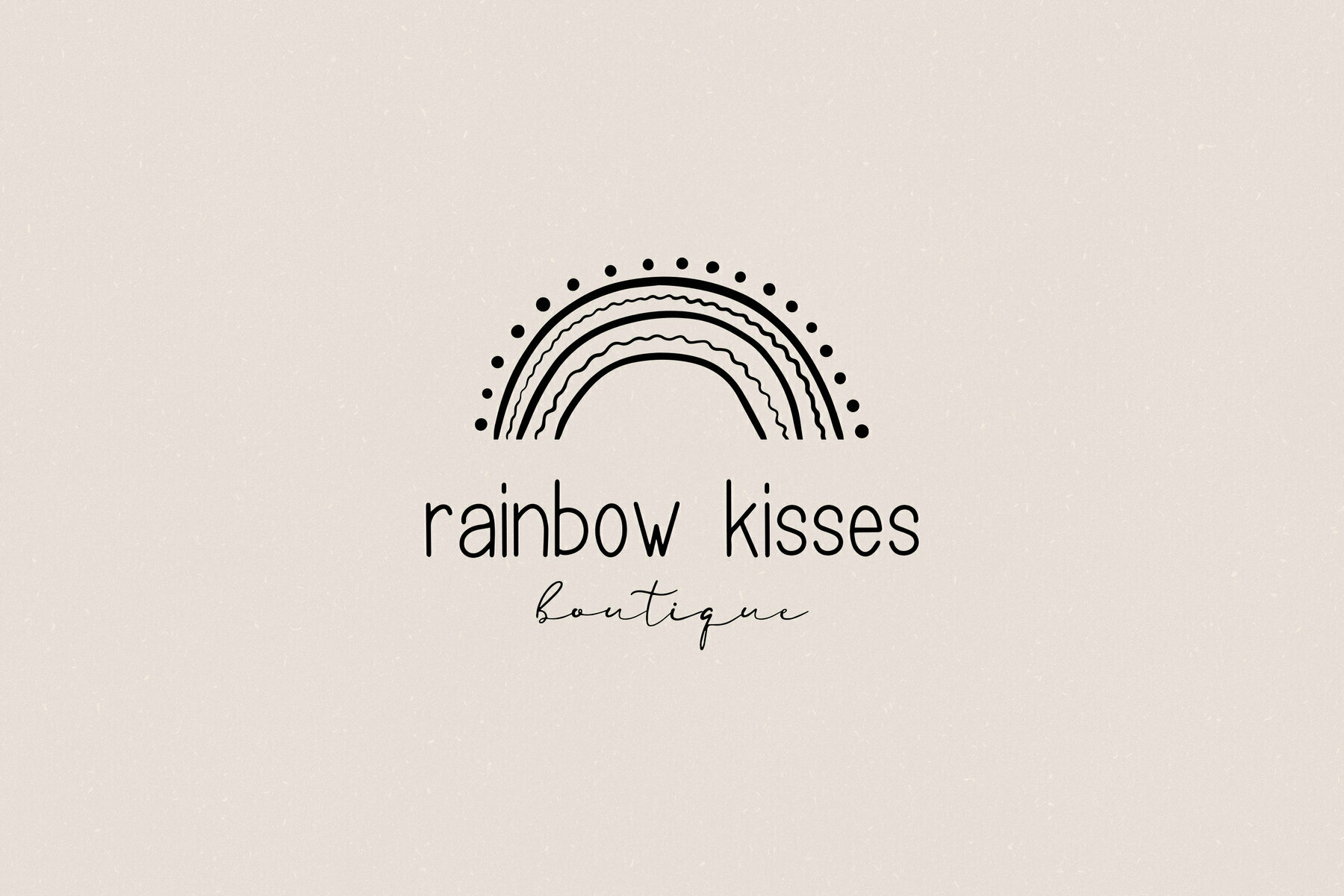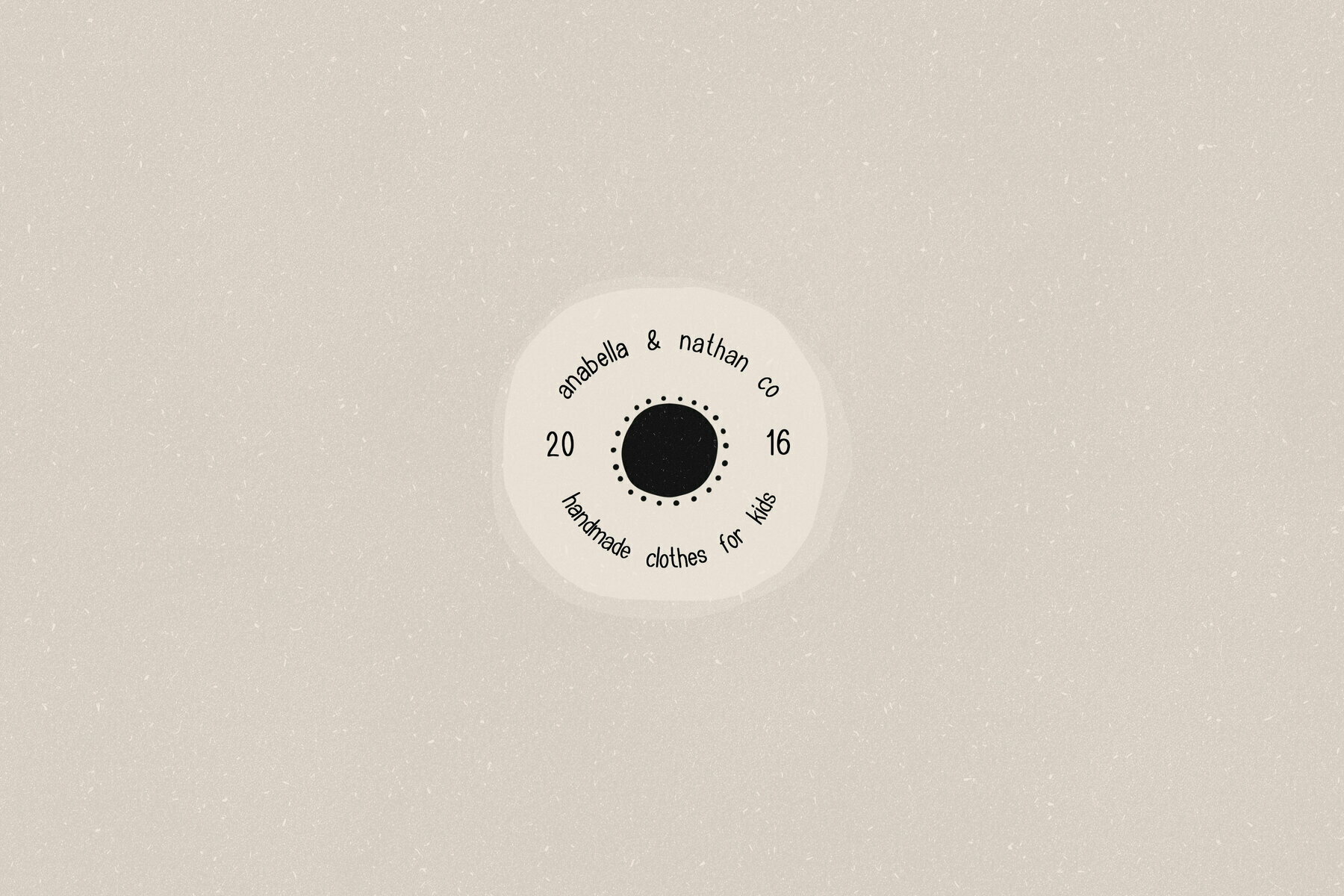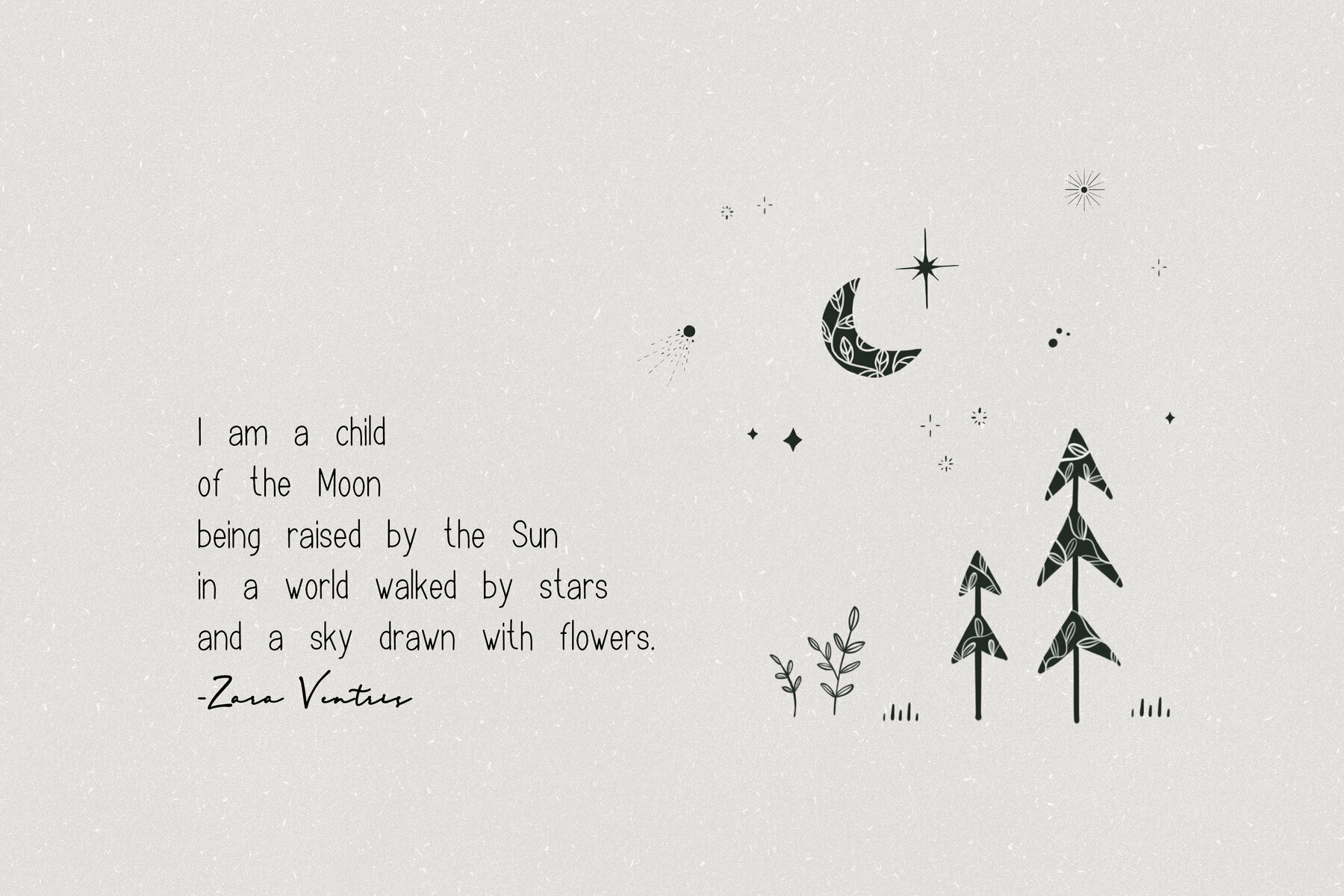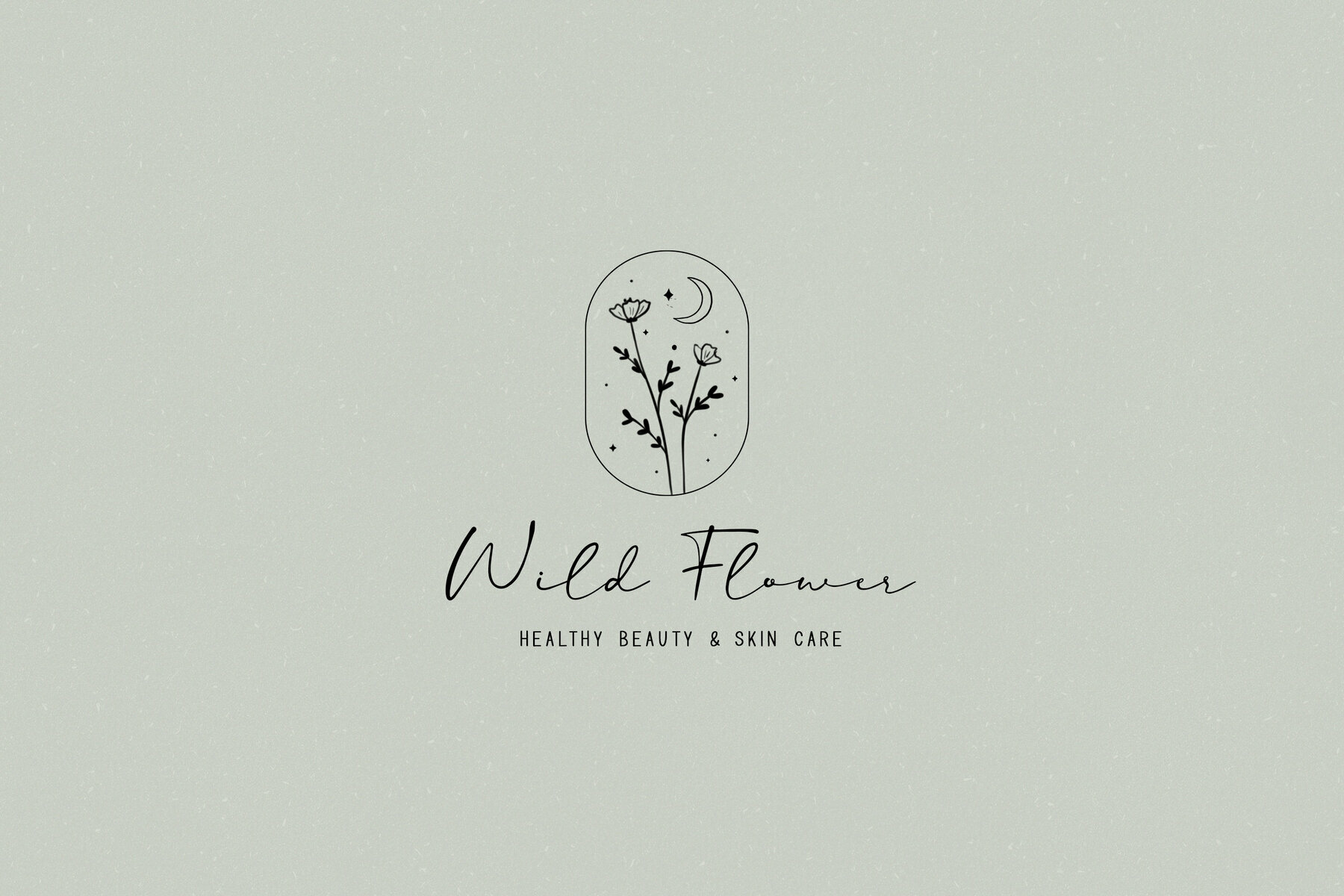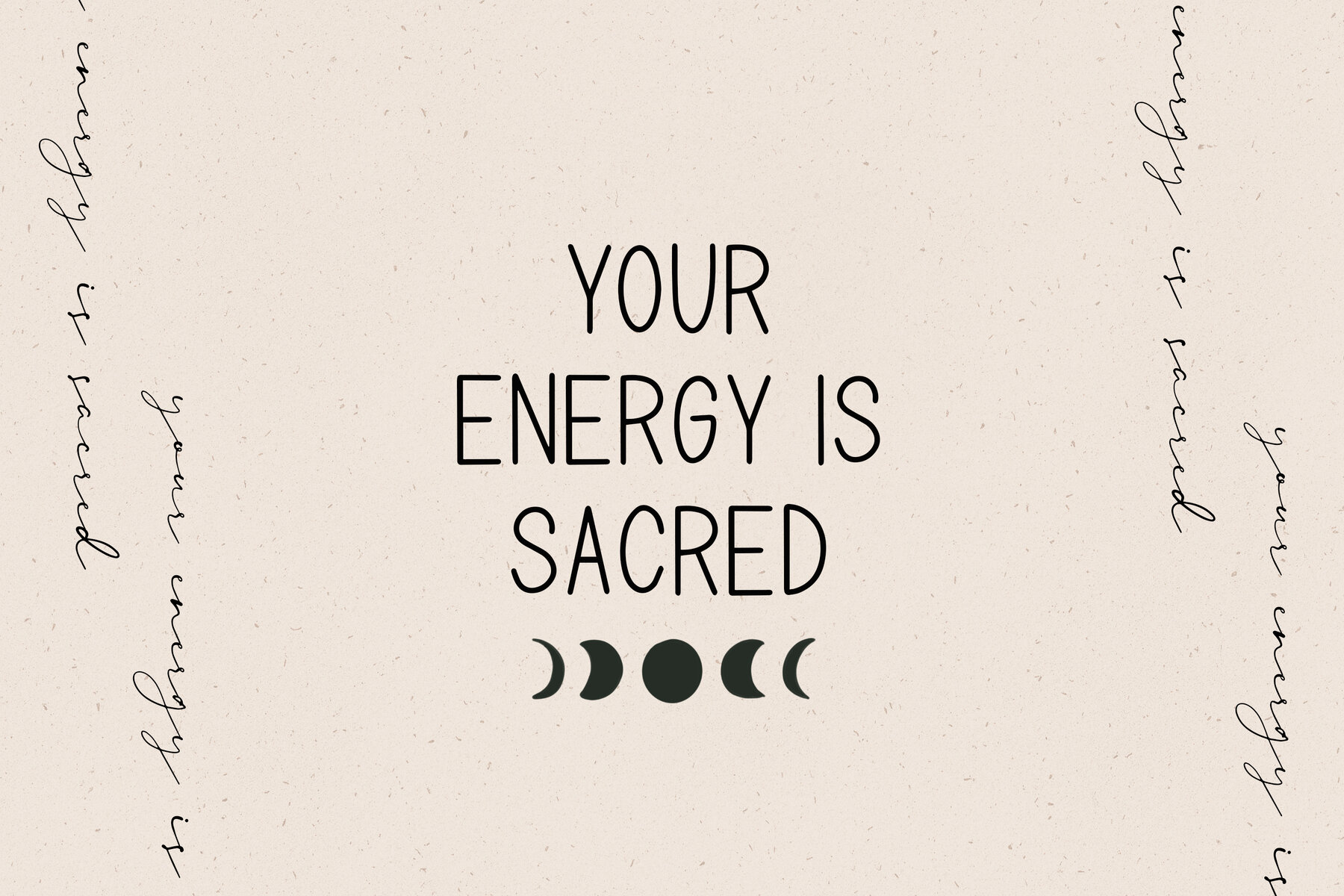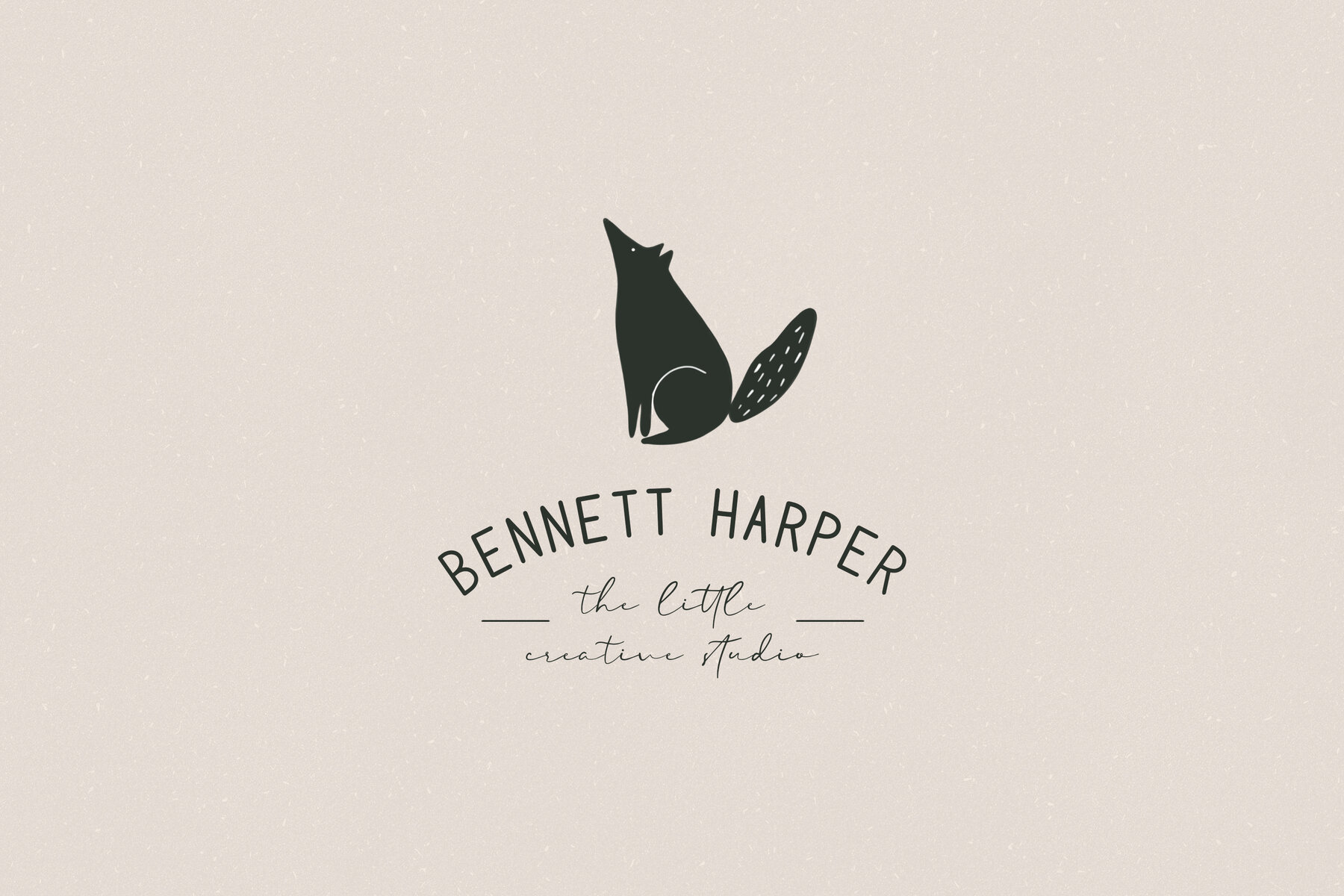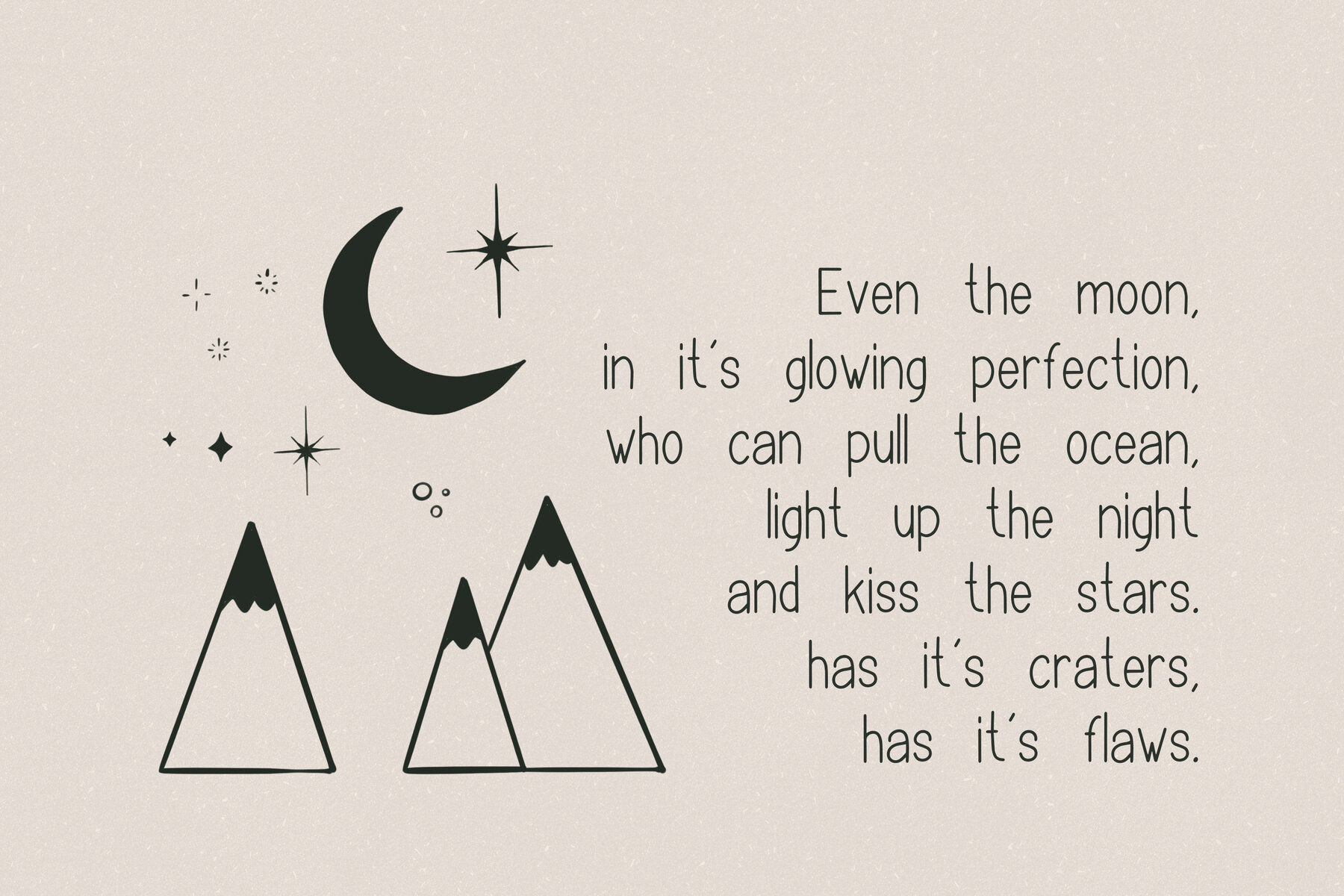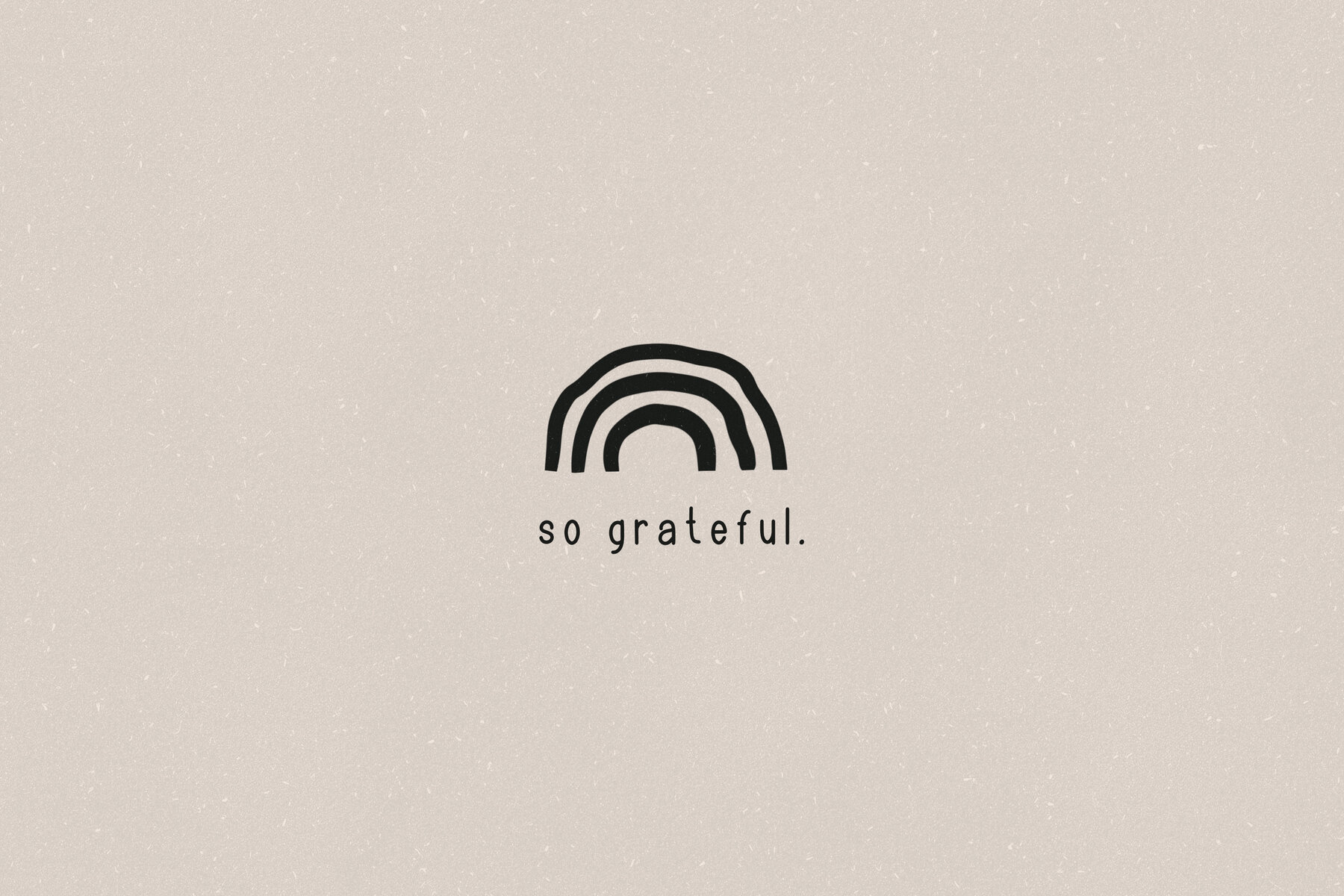
Moonchild Font Duo
Step into a world brimming with whimsical charm and fantasy with the Moonchild Font Duo by Elvinova. This delightful collection pairs a sleek sans serif with an enchanting script font, creating a perfect balance of simplicity and flair. Ideal for projects that demand a touch of magic, these fonts are versatile tools for graphic design aficionados.Moonchild Font Duo: Fantasy in Typeface
Enjoy crafting narratives that captivate the imagination using the Moonchild Font Duo.